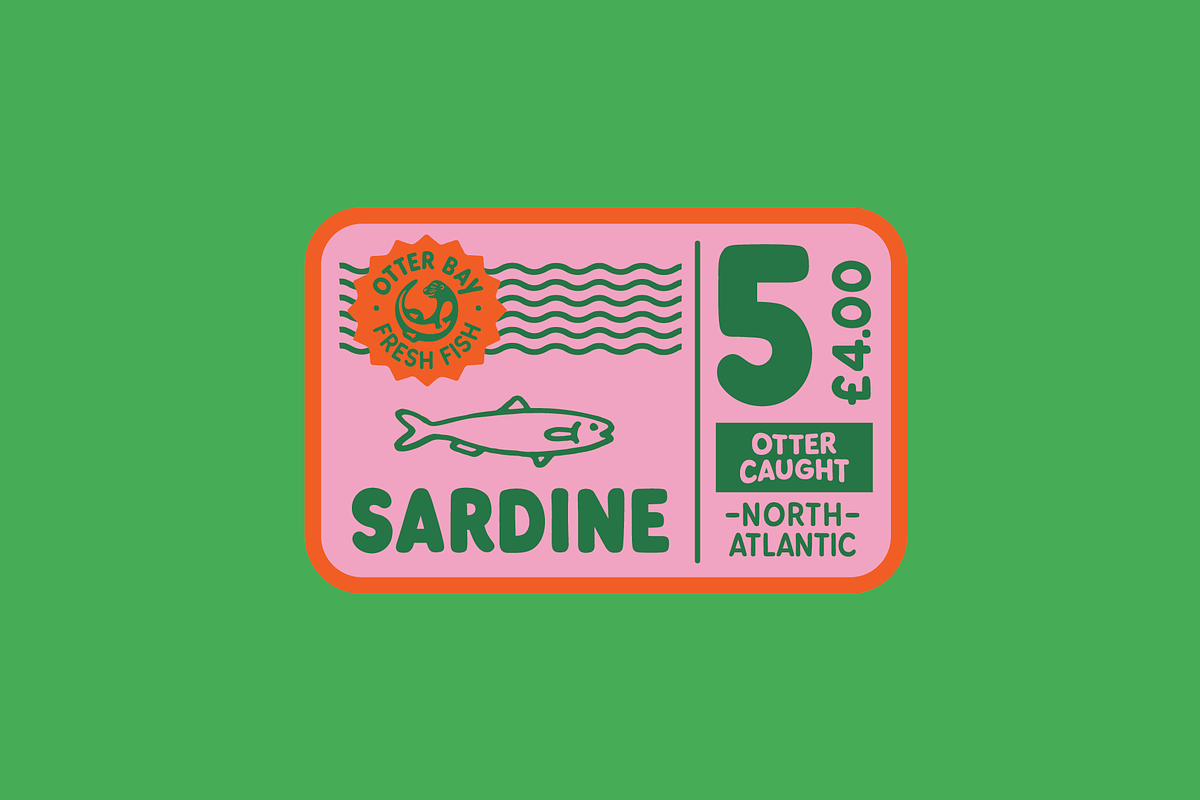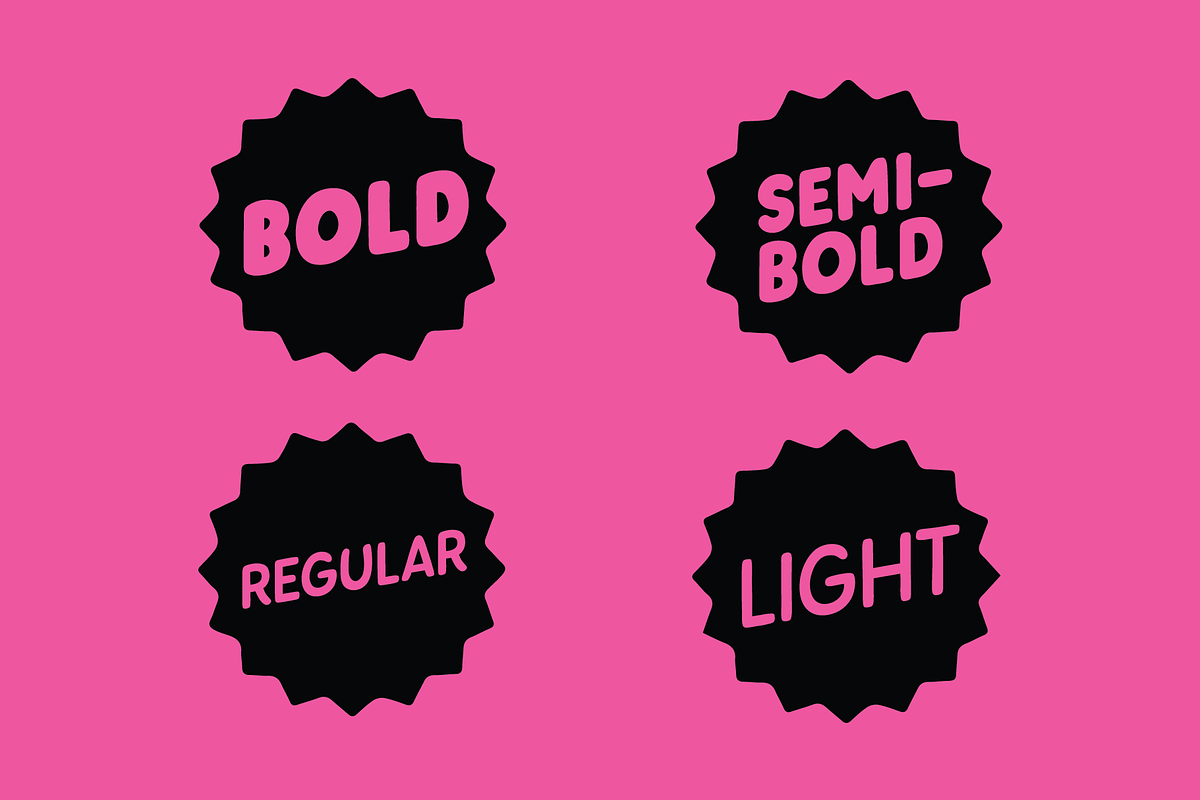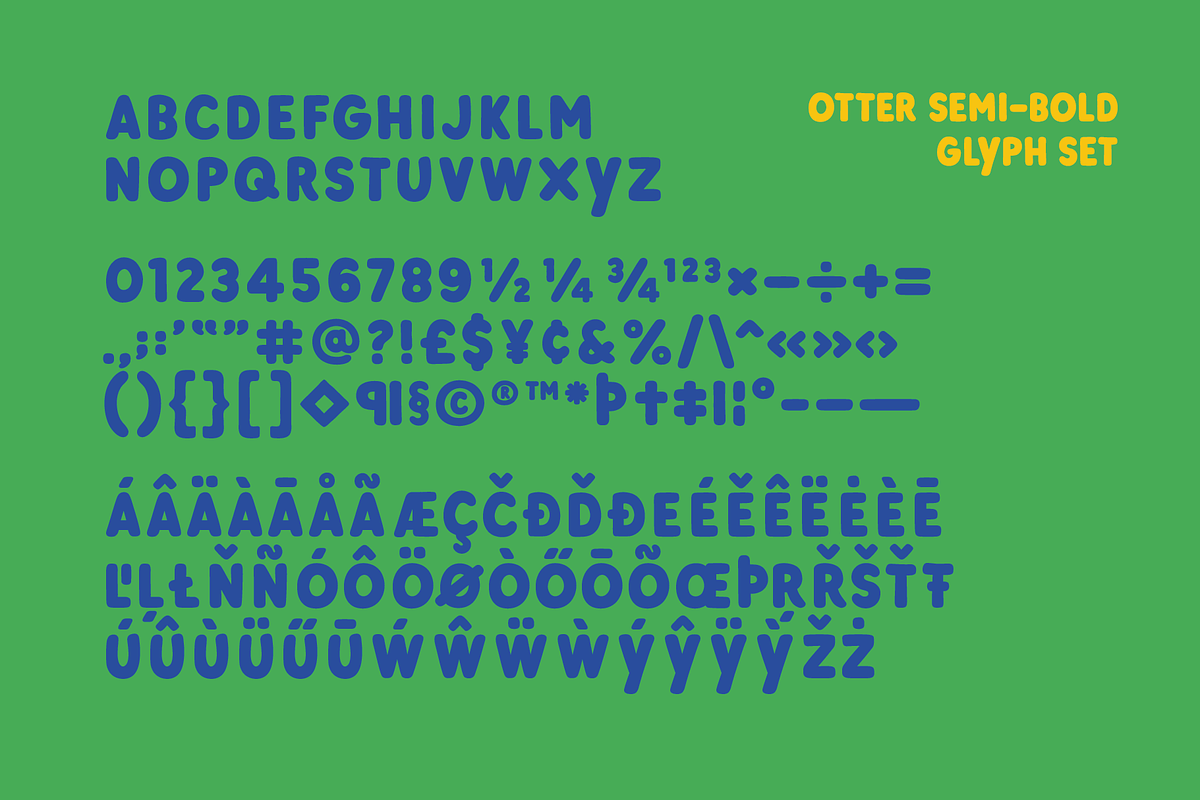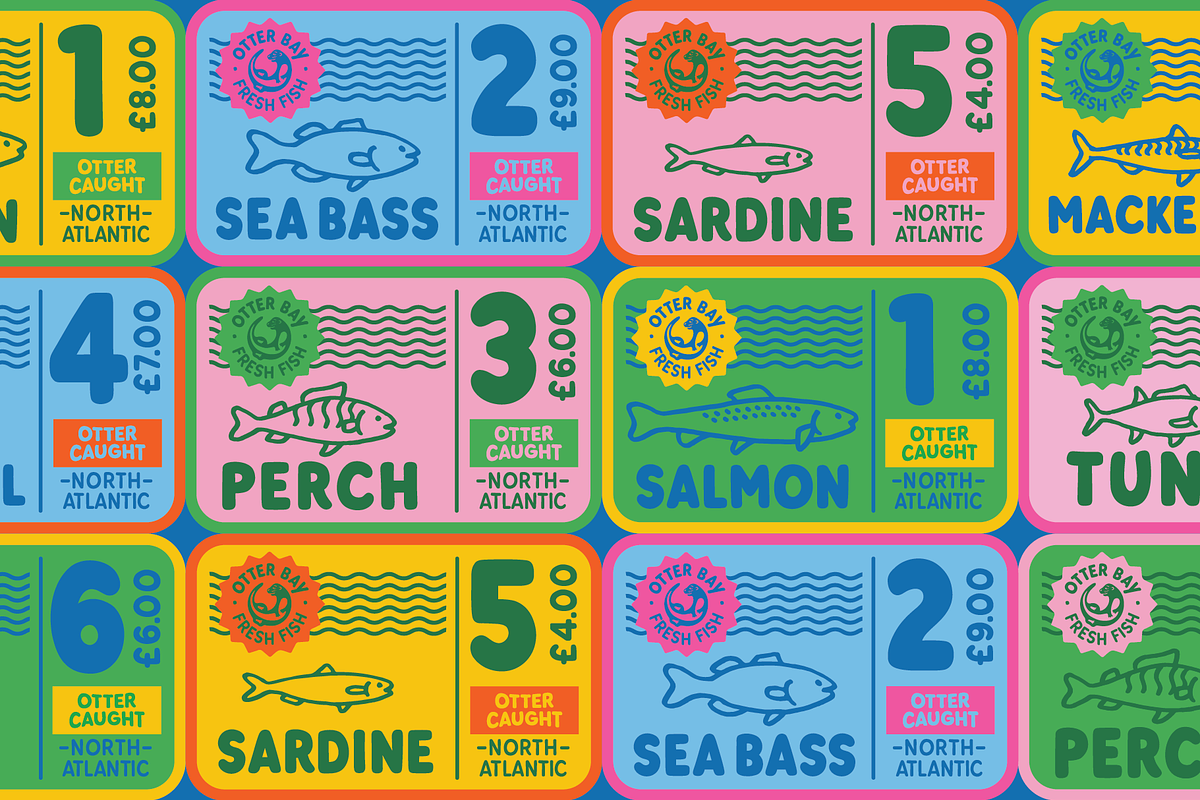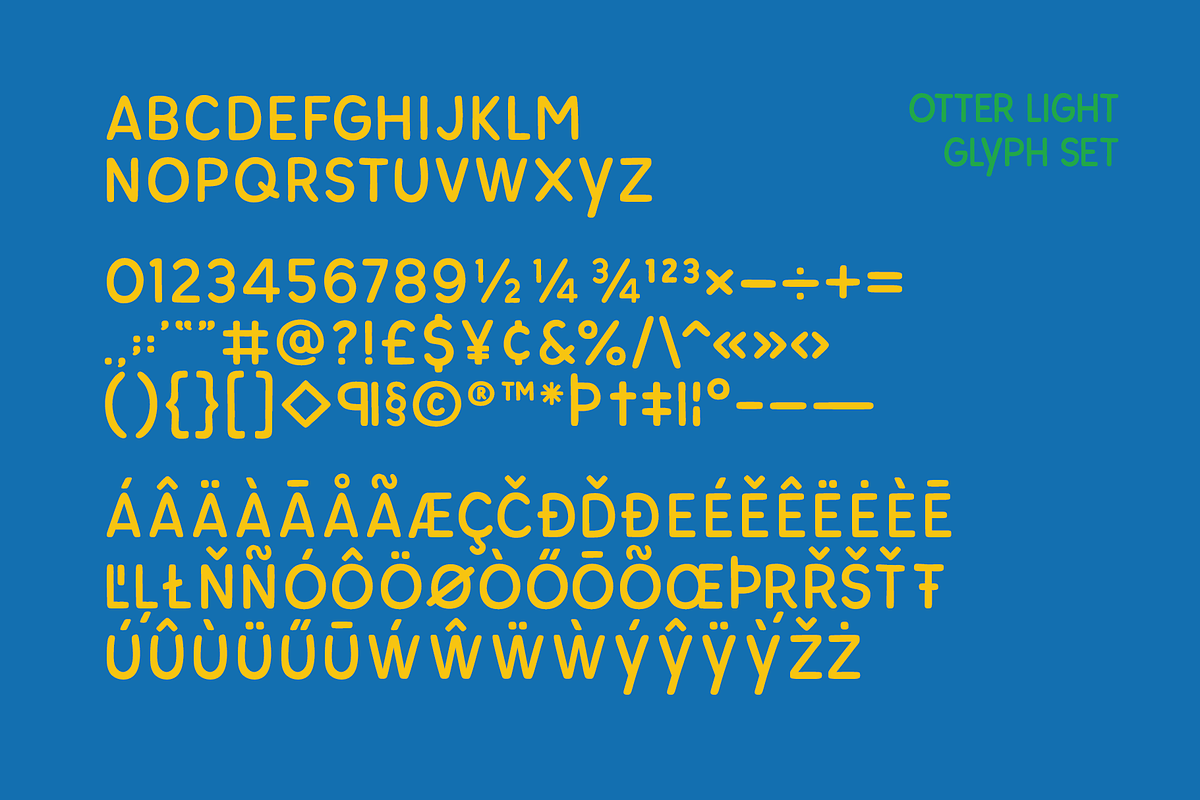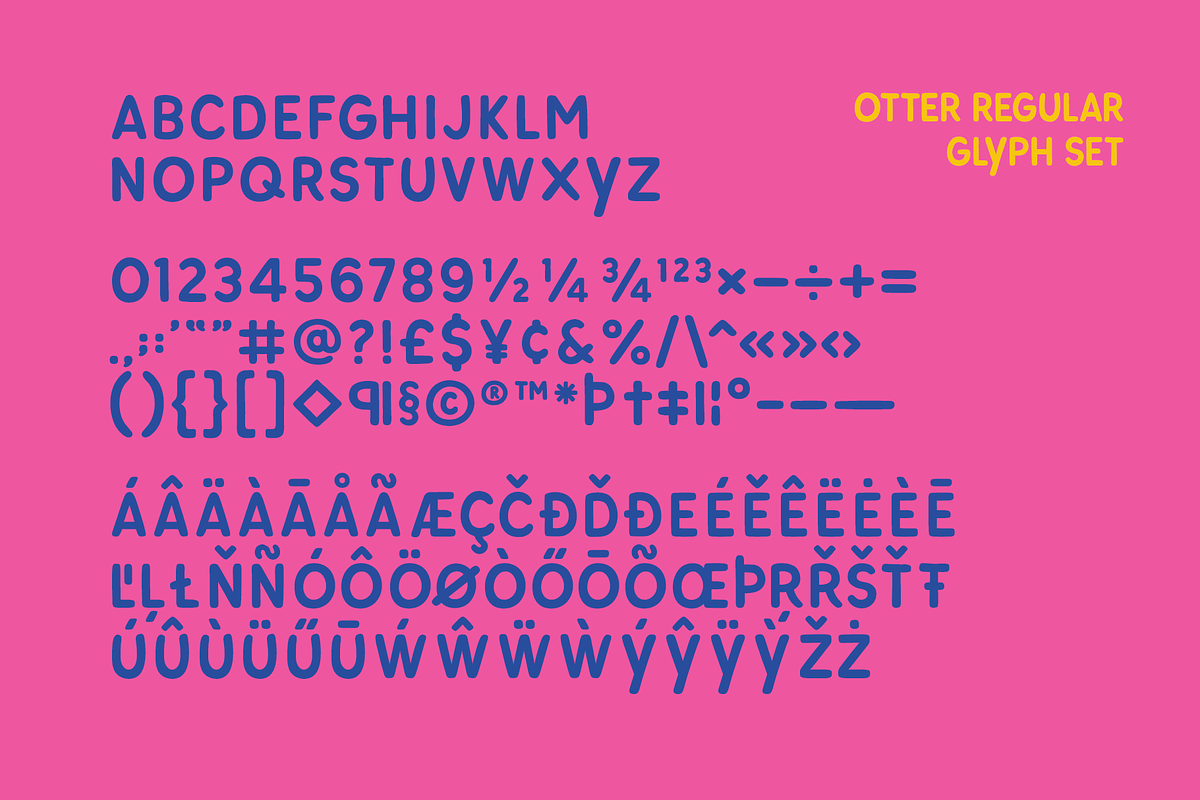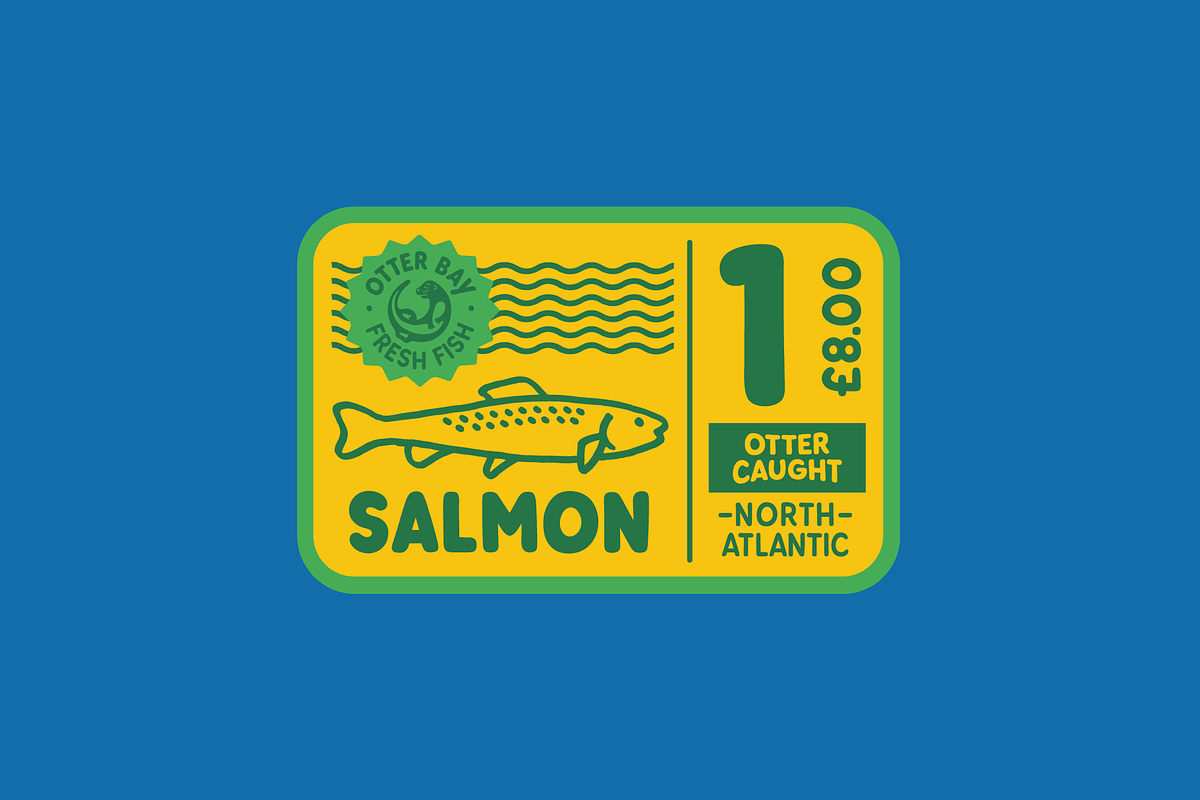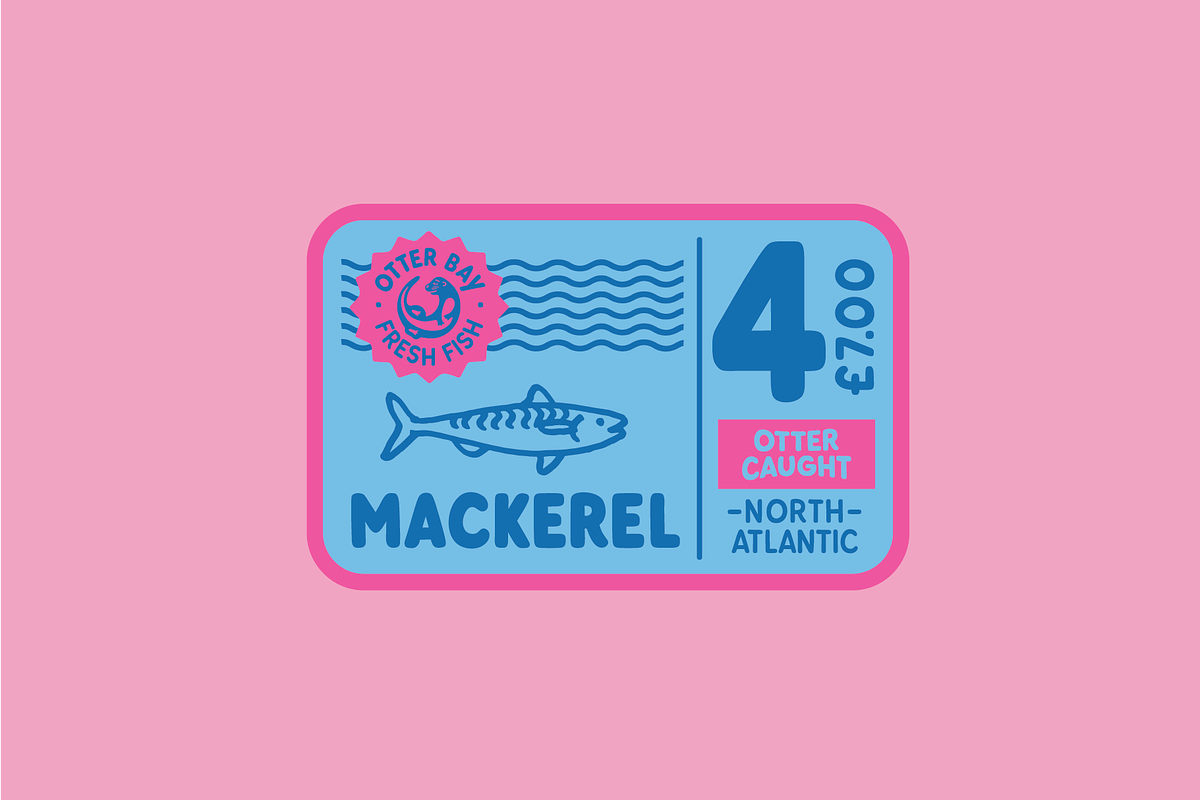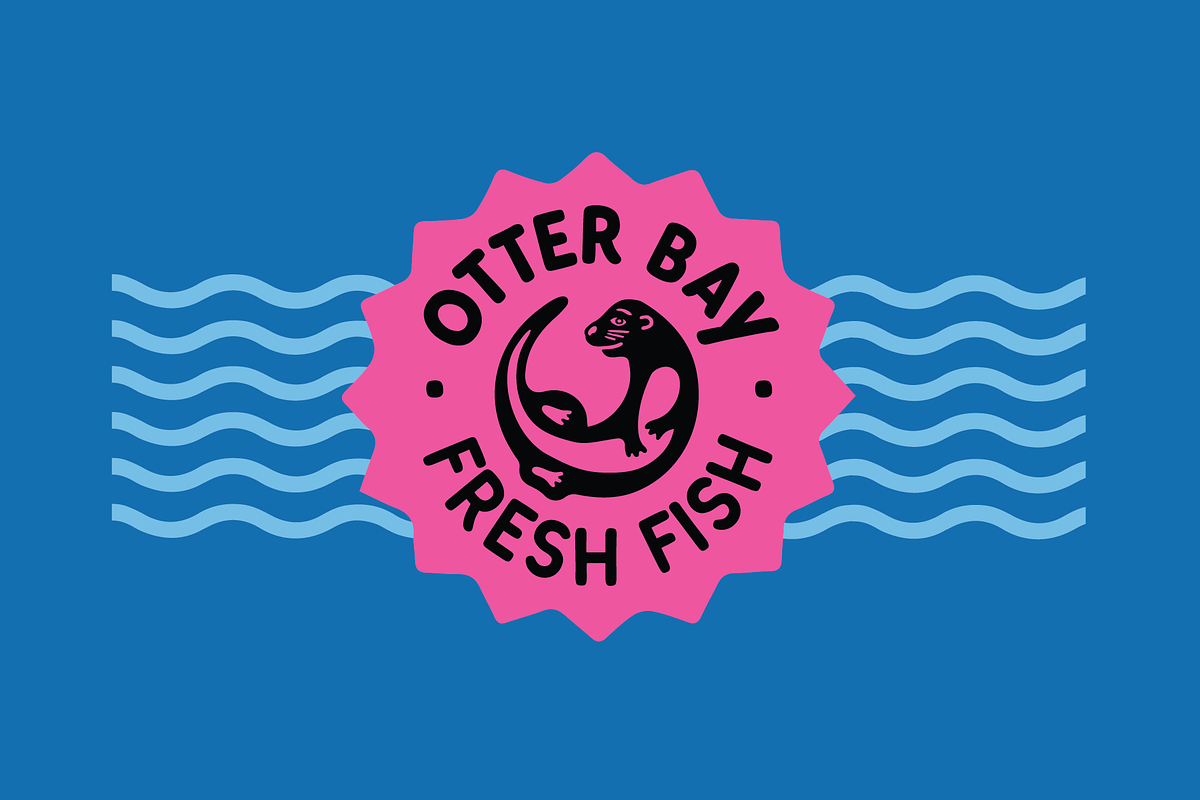
Otter Font Family
With a keen eye for detail and friendly nature, the otter was the perfect inspiration for this playful sans serif typeface.
The family of otters consists of 4 styles to be treated with care.